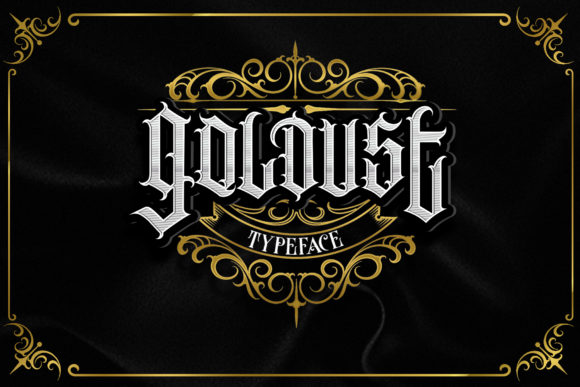
Journey into the world of captivating typography with Goldust Font, a creation by Dansdesign that redefines the boundaries of blackletter artistry. This exquisite font is more than just a collection of letters; it's an invitation to embark on a voyage of creative expression where your ideas take center stage.
Goldust Font is a testament to the power of individuality, crafted with meticulous attention to detail and an unwavering commitment to excellence. Each character exudes a distinct personality, intertwining elegance and edginess in a harmonious blend. The result is a font that commands attention, leaving an indelible mark on the hearts and minds of your audience.
With Goldust Font, the possibilities are boundless. Its versatility knows no limits, adapting seamlessly to a kaleidoscope of creative endeavors. Whether you're a seasoned designer seeking to elevate your work or a budding artist yearning to unleash your inner genius, Goldust Font is your steadfast companion, guiding you towards typographic triumphs.
Step into the realm of audacious design with Goldust Font. Unlock the gateway to captivating logos that ignite imaginations and leave a lasting impression. Craft eye-catching posters that demand attention, transforming ordinary words into vibrant expressions of art. Unleash your creativity in the world of branding, where Goldust Font breathes life into your vision, creating a cohesive identity that resonates with your audience.
But Goldust Font's allure extends far beyond the realm of traditional design. It's a font that speaks to the soul, evoking emotions and igniting conversations. Let your social media posts dance with personality, captivating your followers with visually stunning quotes and messages that resonate deeply. Create digital content that captivates and engages, leaving your audience yearning for more.
Goldust Font is more than just a font; it's an investment in your creative potential. Its timeless beauty and versatility ensure that it will remain a valuable asset in your design arsenal for years to come. Embrace the power of Goldust Font and watch as your creative dreams transform into tangible masterpieces.